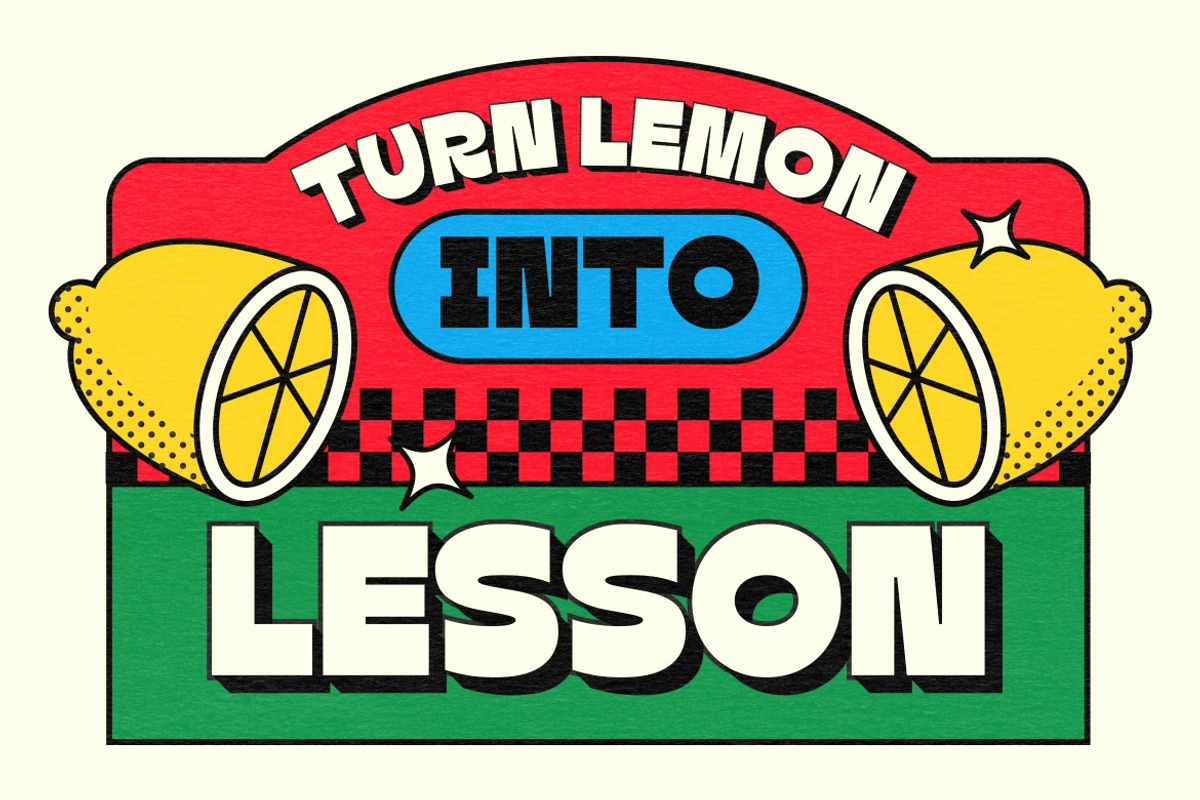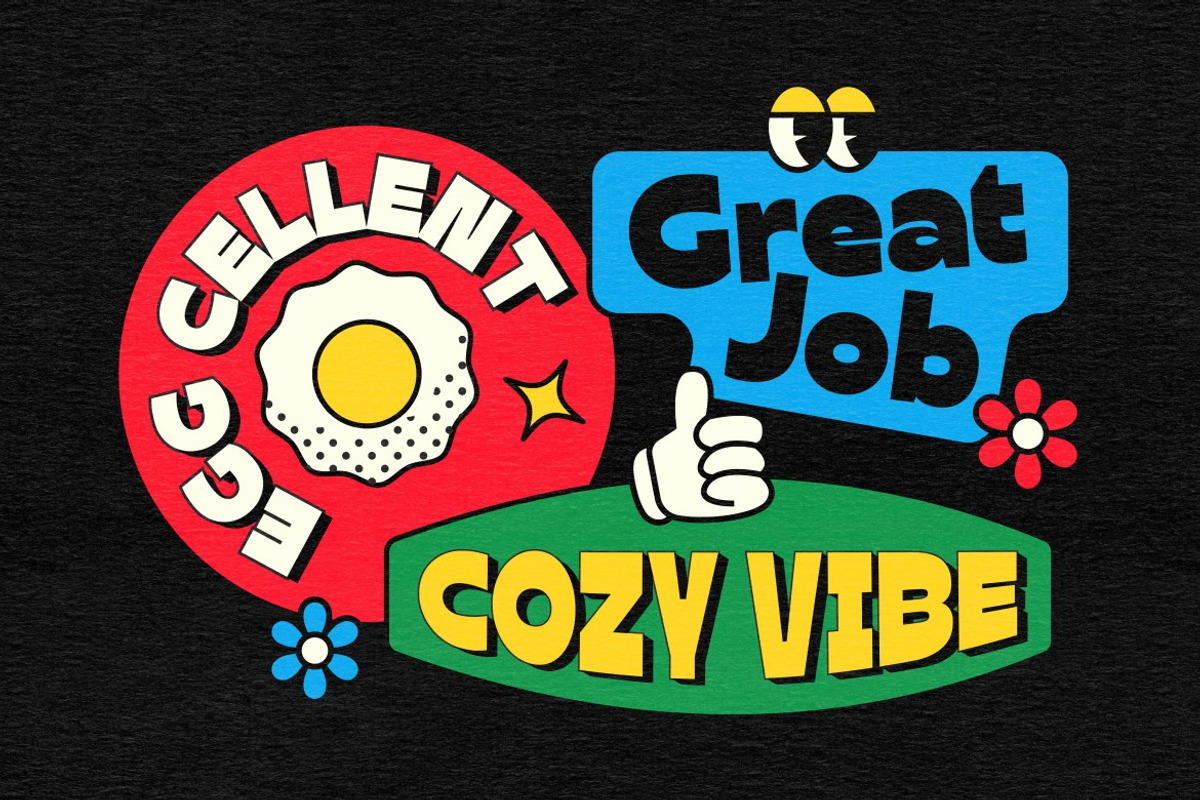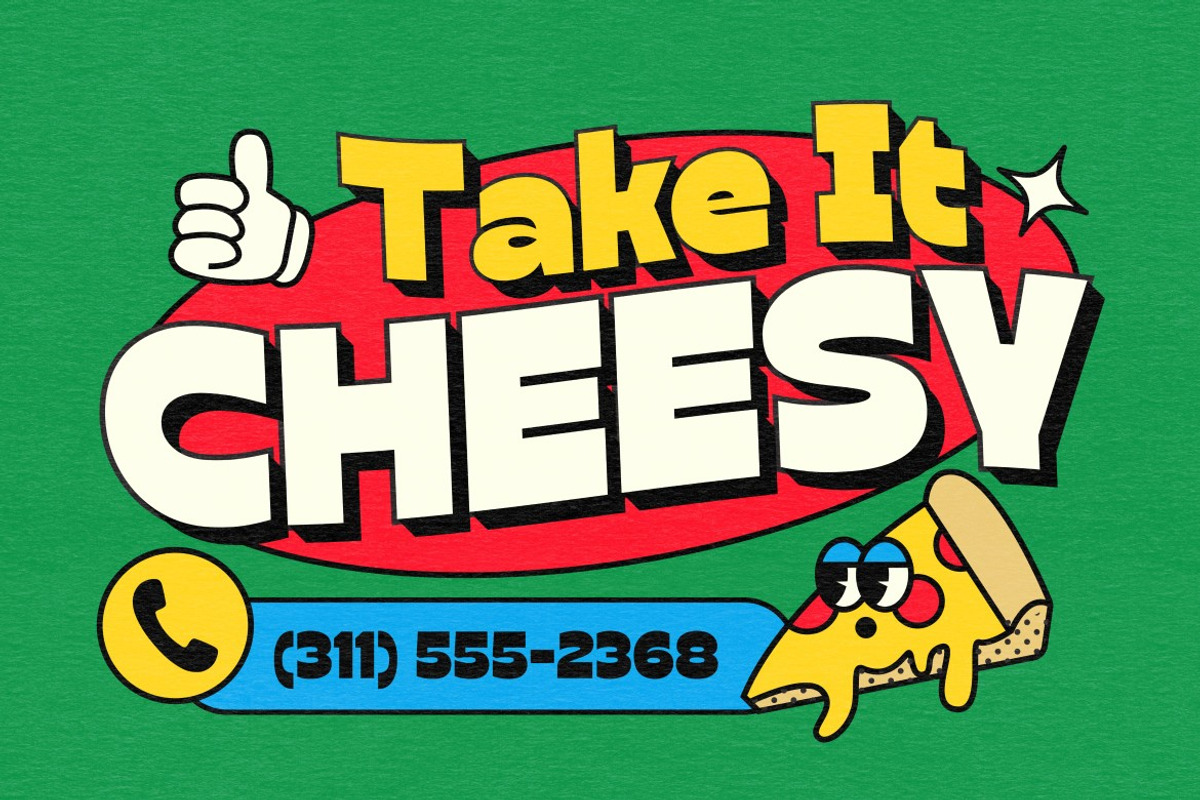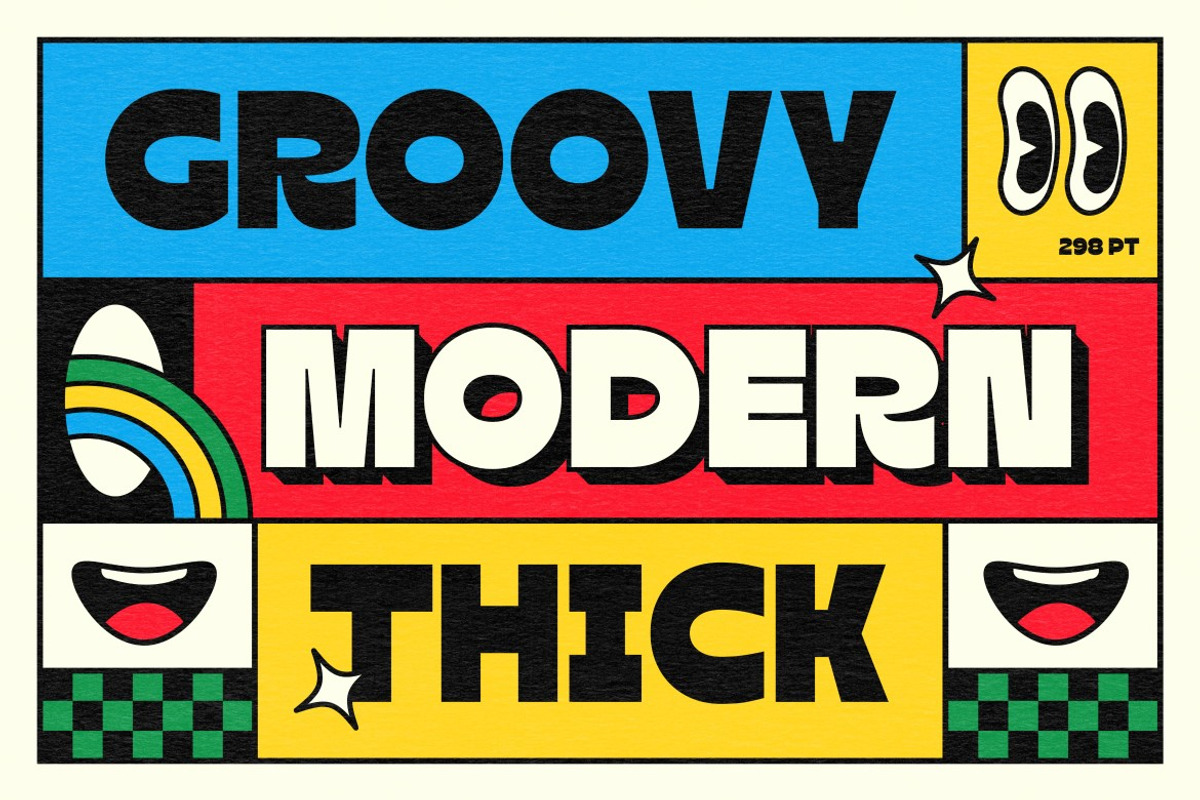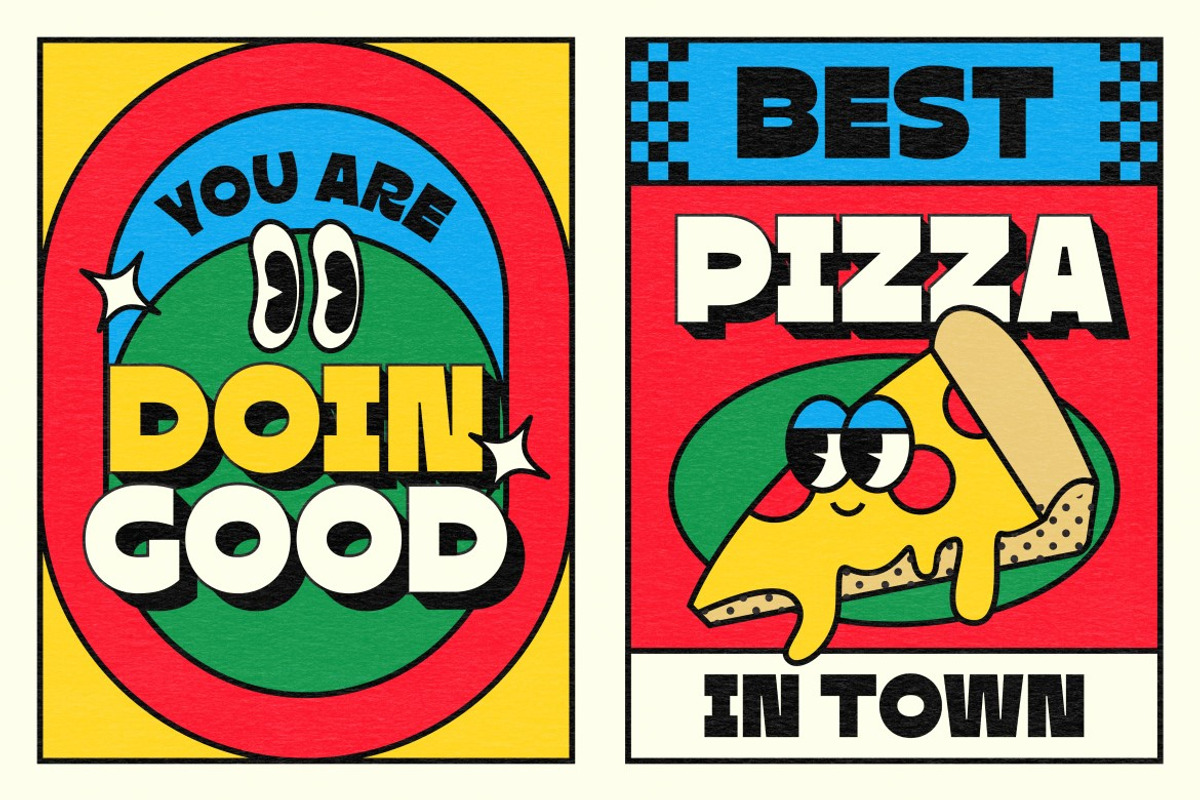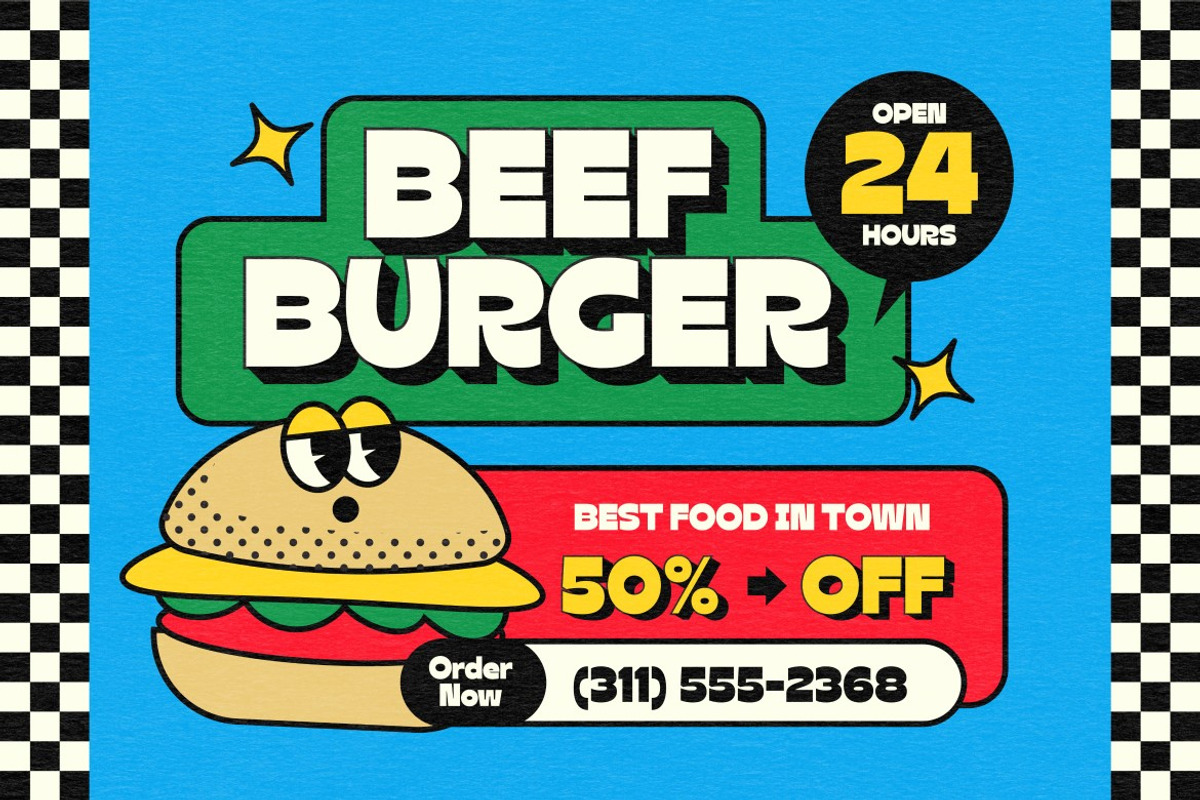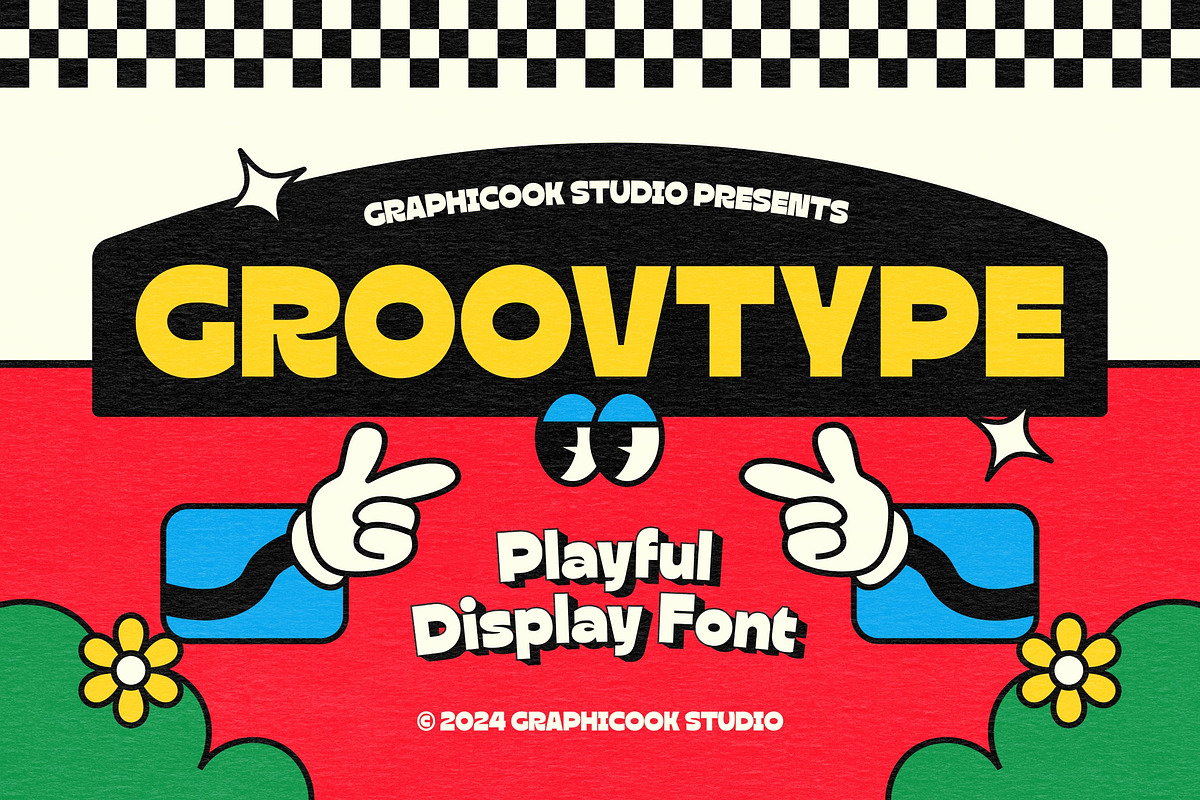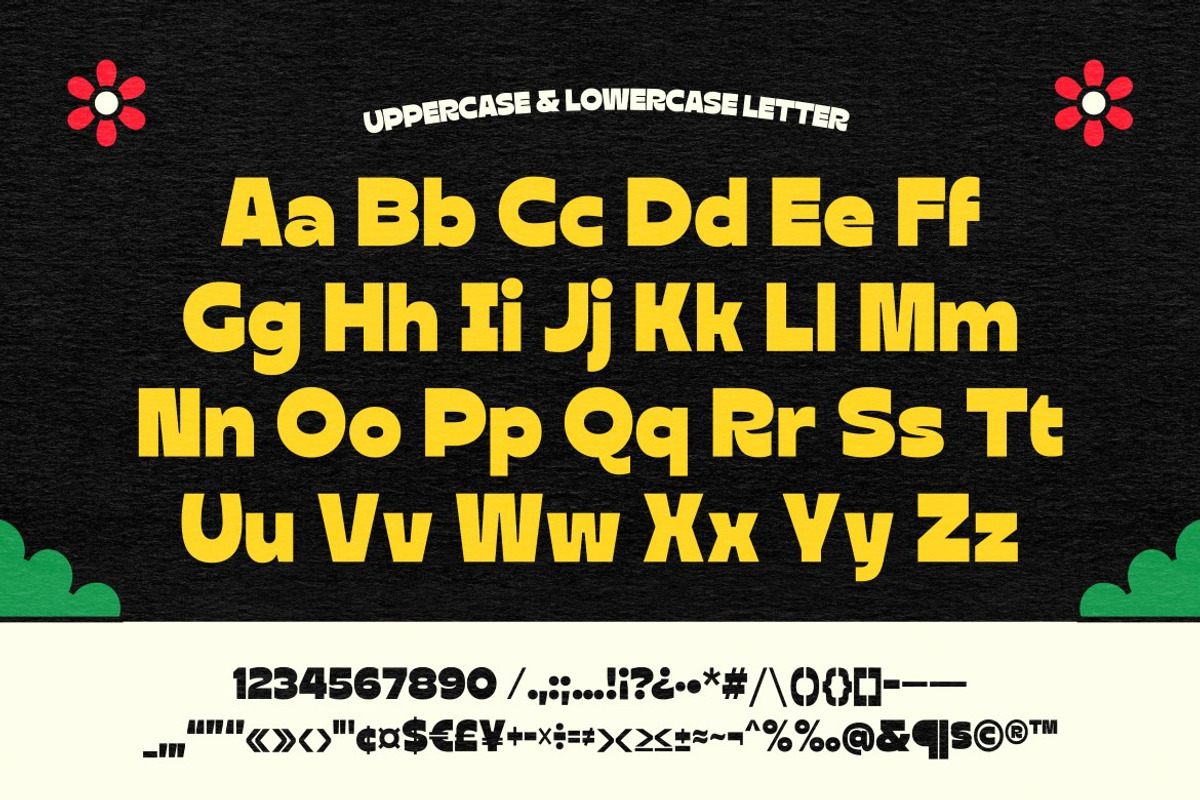
Groovtype
Introducing Groovtype: where groovy meets typography in a playful and fun-style font. It's versatile, making it ideal for any design project.
Groovtype is perfect for headlines, logotypes, magazines, packaging, quotes, movies, games, cover albums, book covers, and flyers, it's a perfect solution for creating eye-catching designs that stand out in any context.